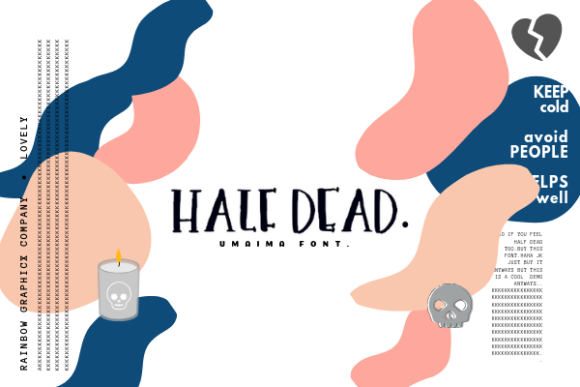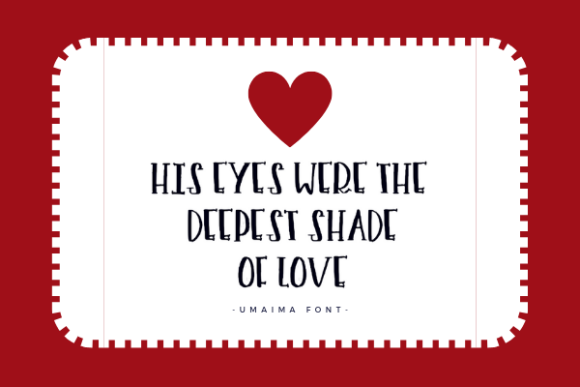
HomeScript FontsUmaima Font Script Fonts Umaima Font FacebookXPinterestWhatsApp Umaima Font Poster 2 Umaima Font Poster 3 About Umaima Font Umaima is a funky and playful font that celebrates the cute things in life. Get inspired by its contemporary charm! DOWNLOAD NOW People also explored Husband Font Christmas Snowflakes Font Sunflowers Font Darling Font Grade Monogram Font Floral Beauty Font Sabyan The Coconut Font Kristaly Font 325 0 TagsUmaima Font Previous articleFantastic FontNext articleWulan Script Font LEAVE A REPLY Cancel reply Comment: Please enter your comment! Name:* Please enter your name here Email:* You have entered an incorrect email address! Please enter your email address here Website: Save my name, email, and website in this browser for the next time I comment. Personal Use Free Hollow Personal Use Free Read more about this font Screengem Personal Use Free Read more about this font Sefiya Personal Use Free Read more about this font Dandelions Bloom Personal Use Free Read more about this font BLOG To increase your work productivity, choose the most readable fonts. In today's fast-paced work environment, where digital communication and information consumption are integral to our daily routines, the choice of fonts can significantly impact... Exploring Font Trends 5 Fonts That Will Dominate Design Trends in 2026 Top 10 Handwritten Fonts That Elevate Your Designs